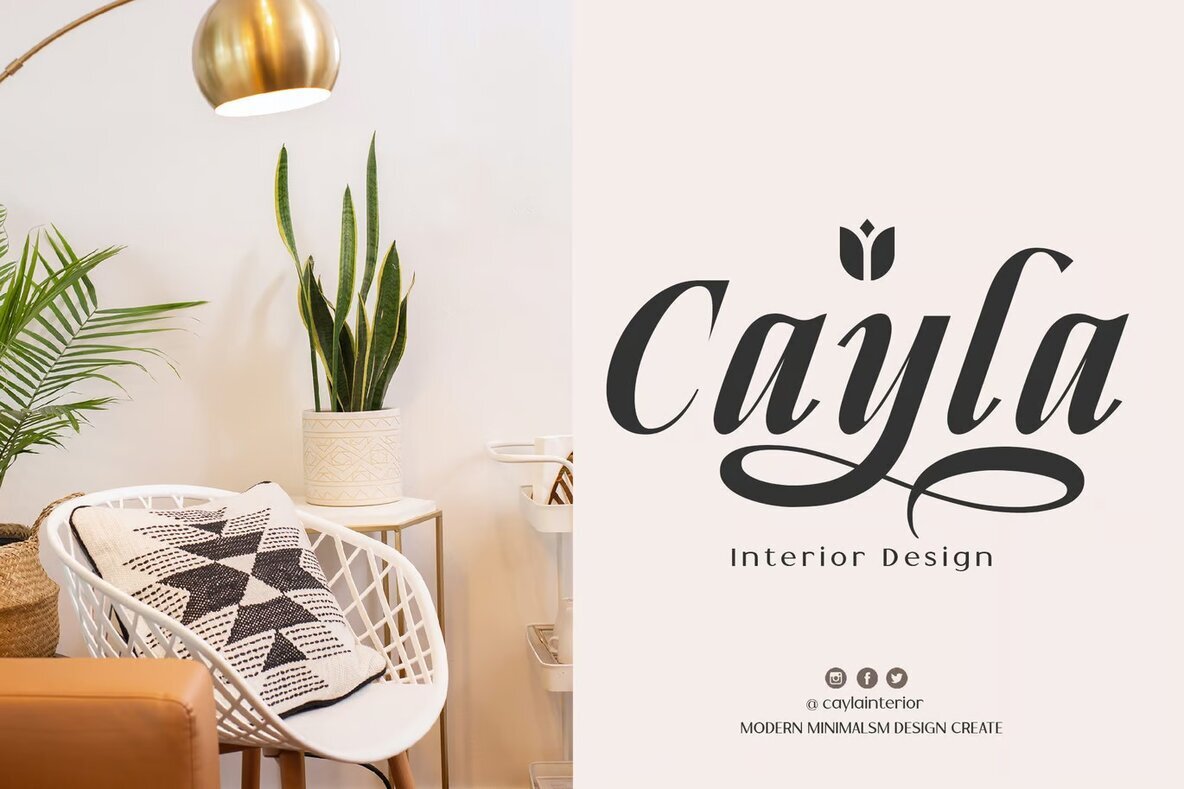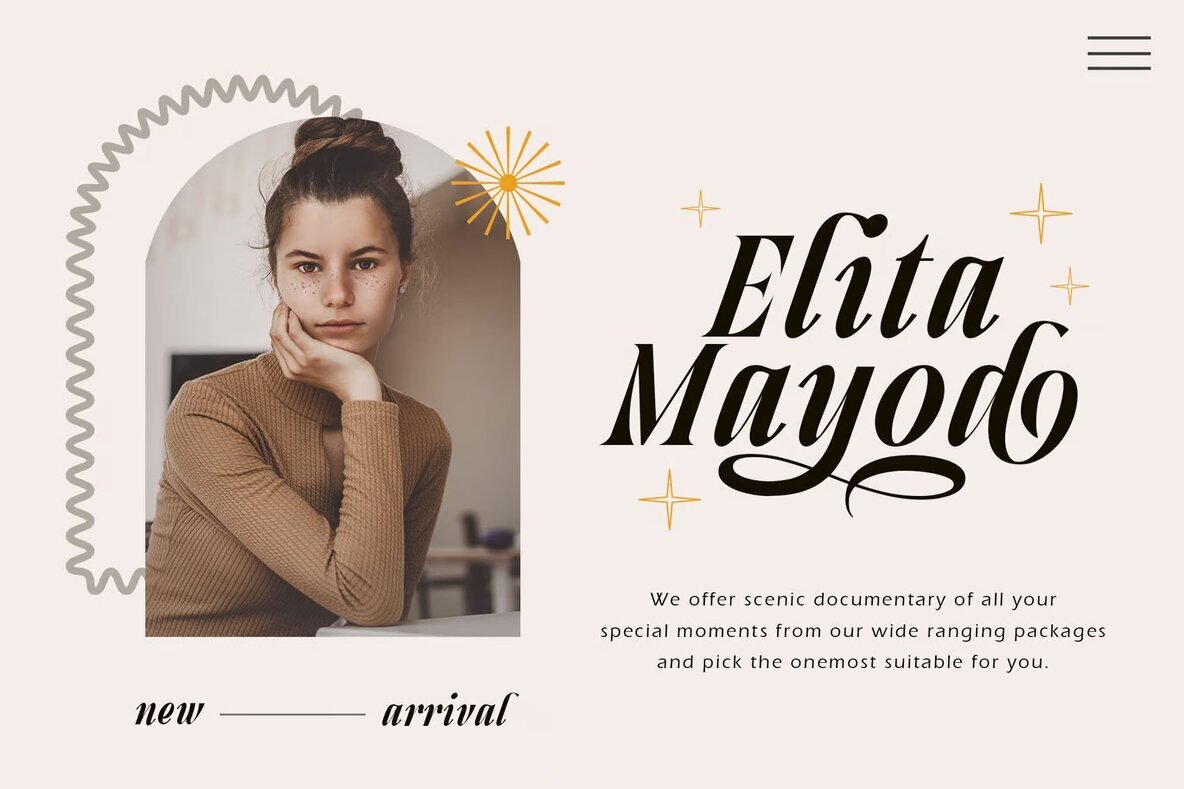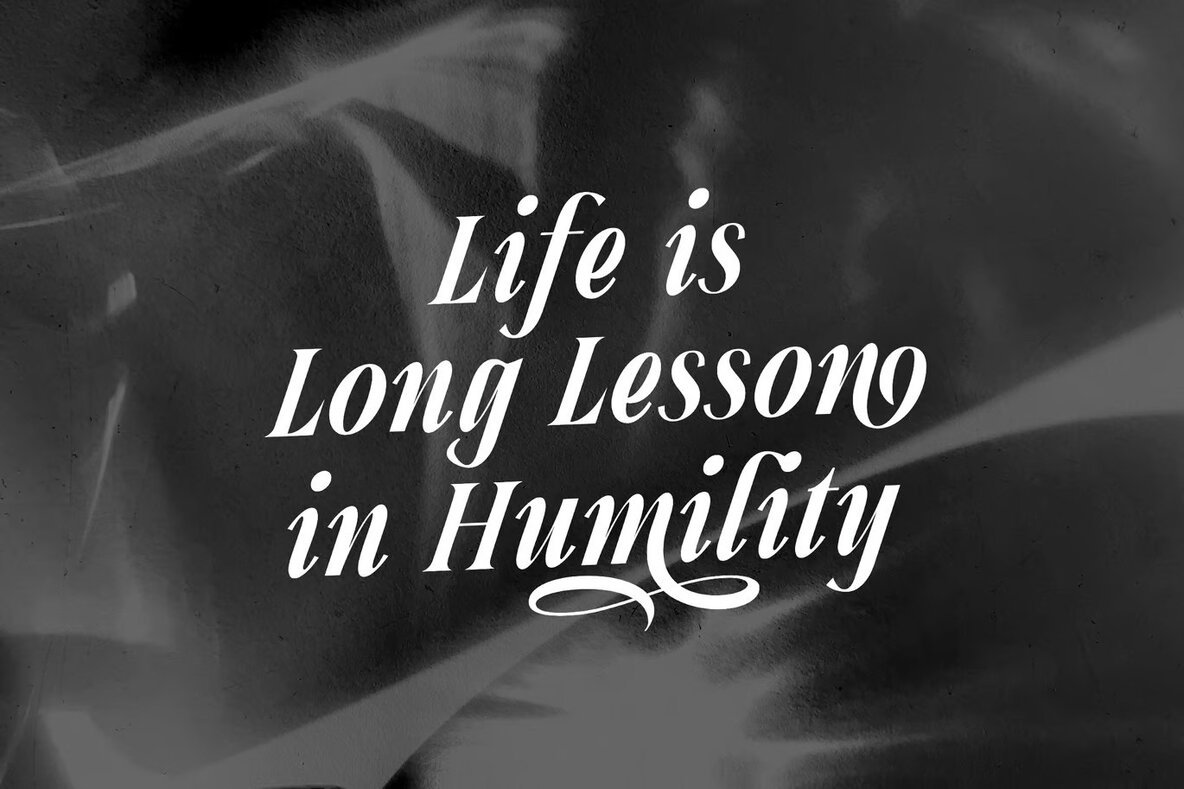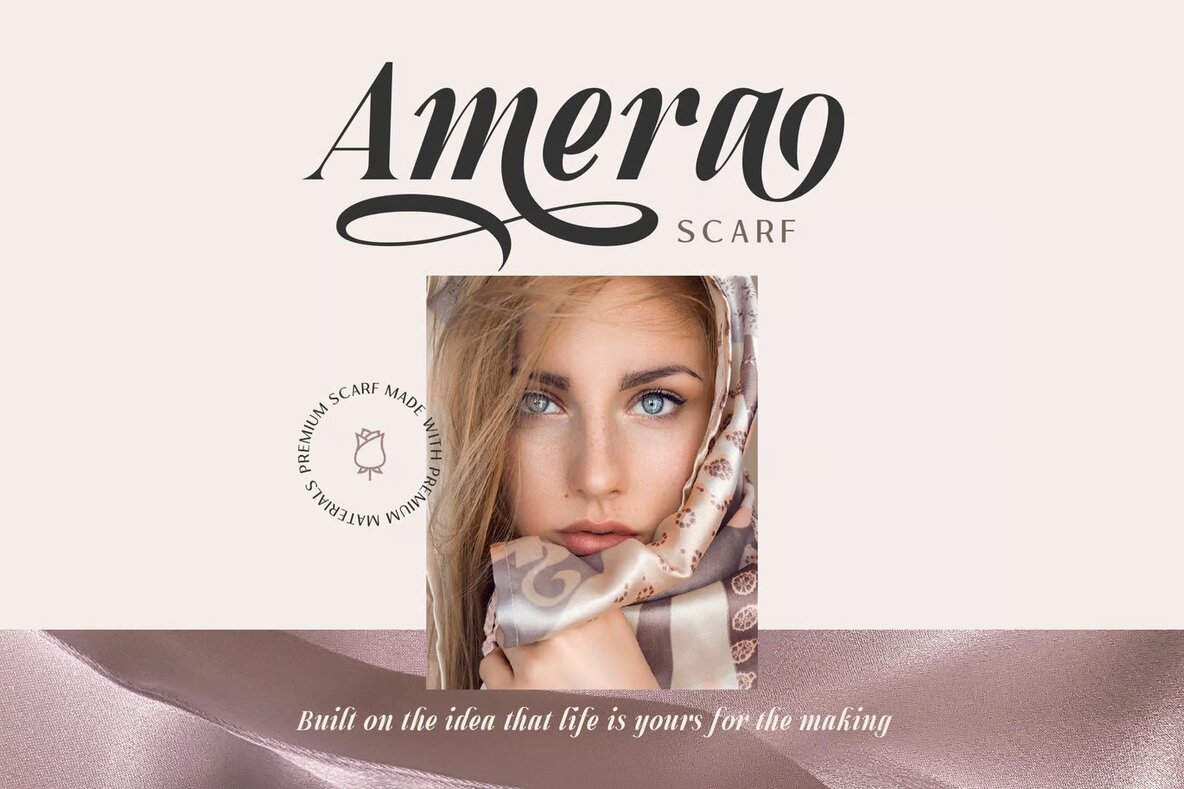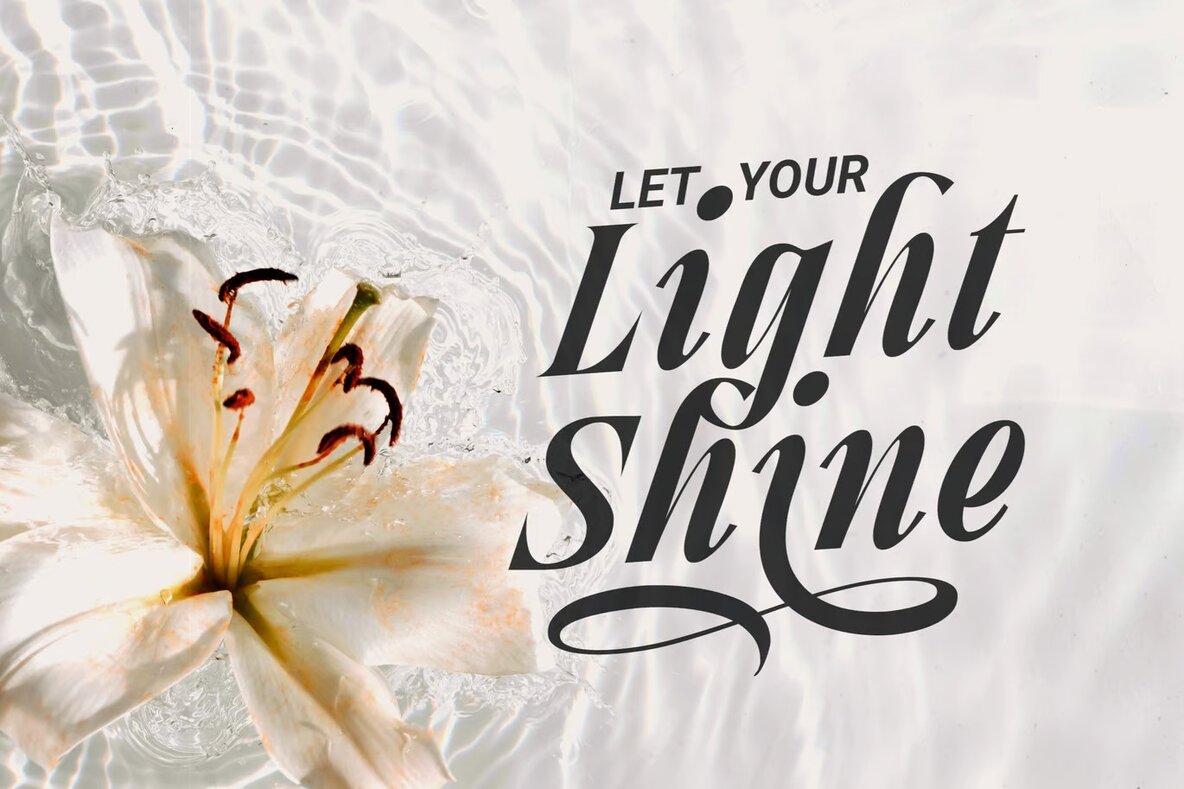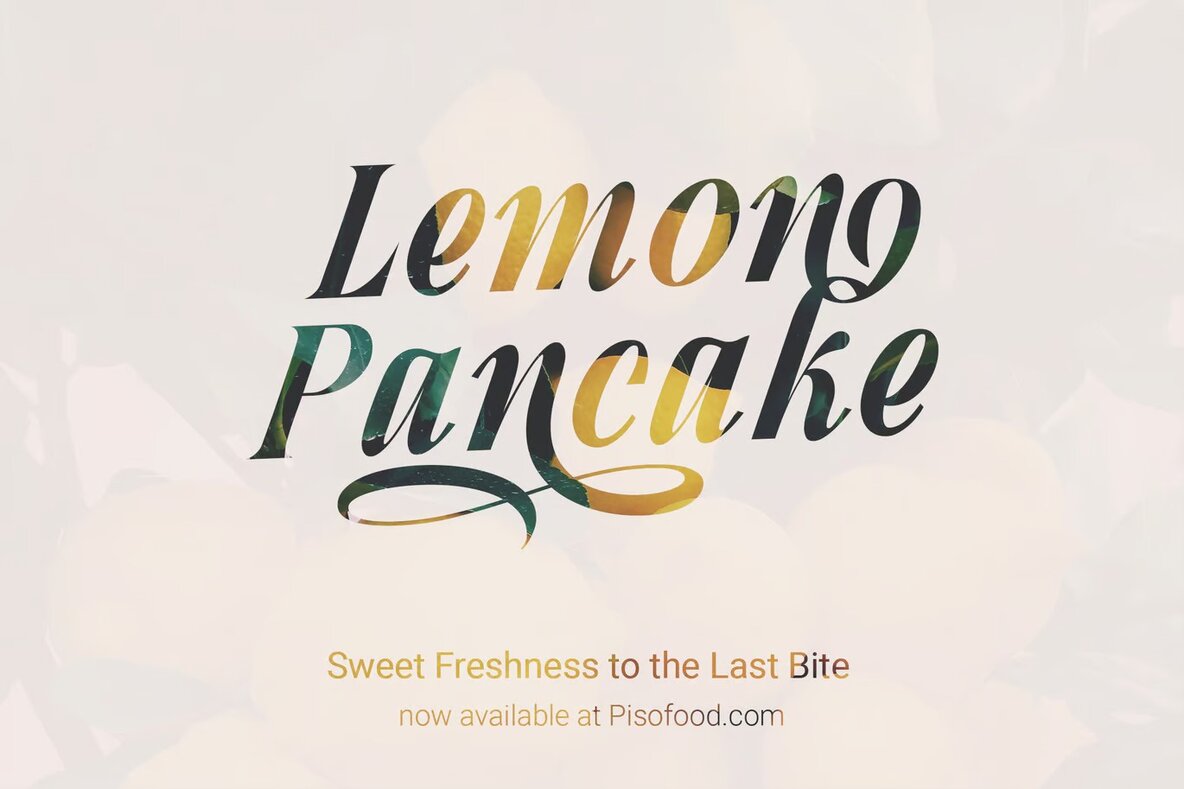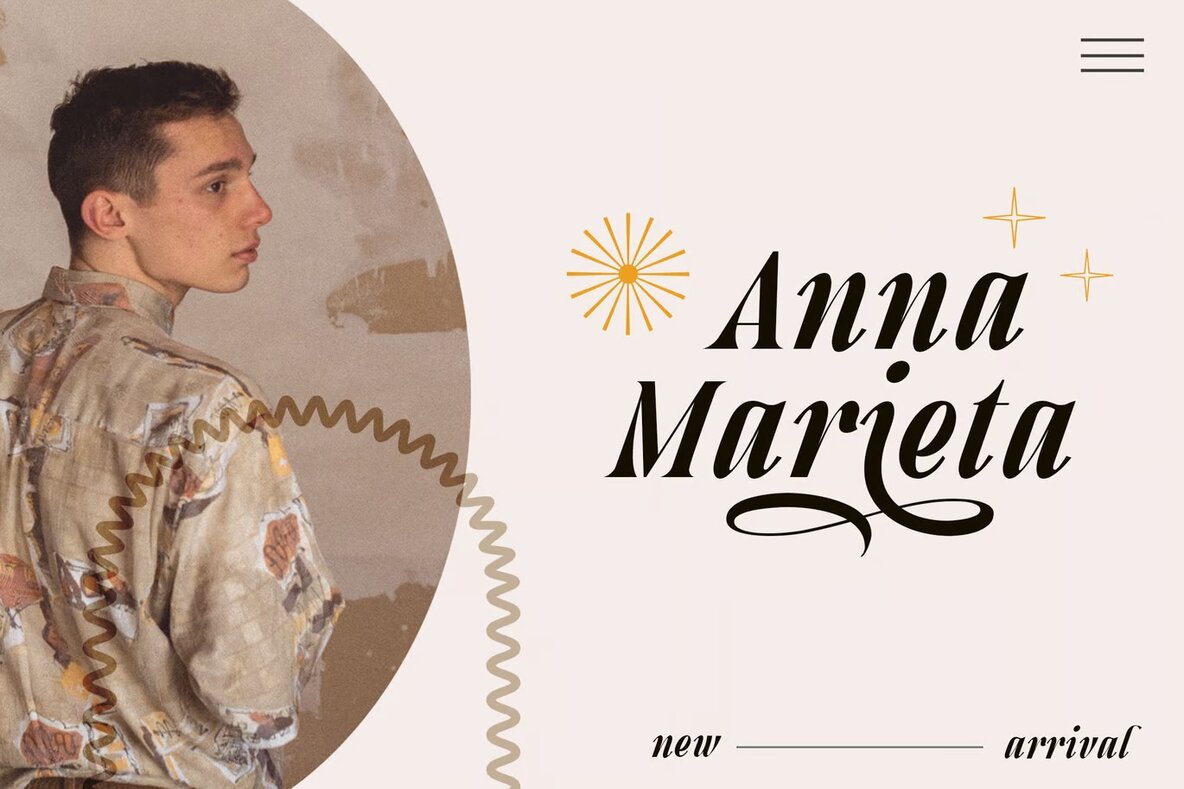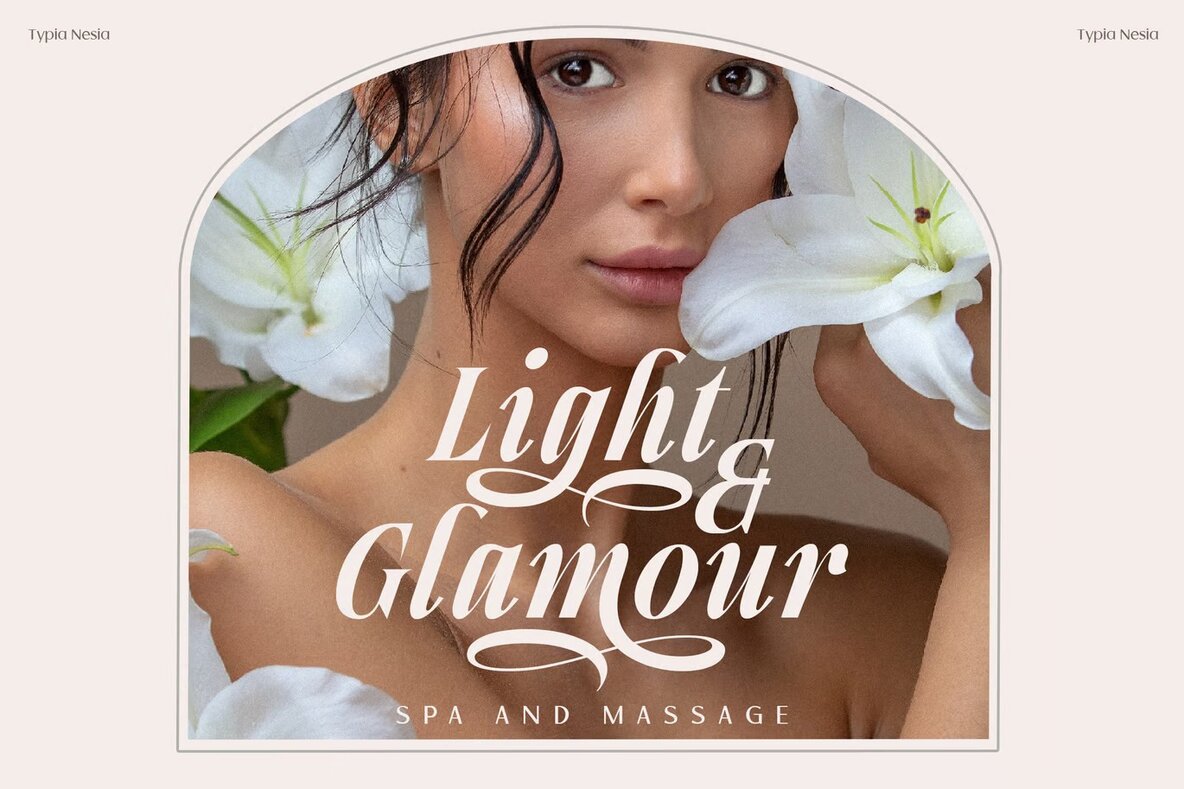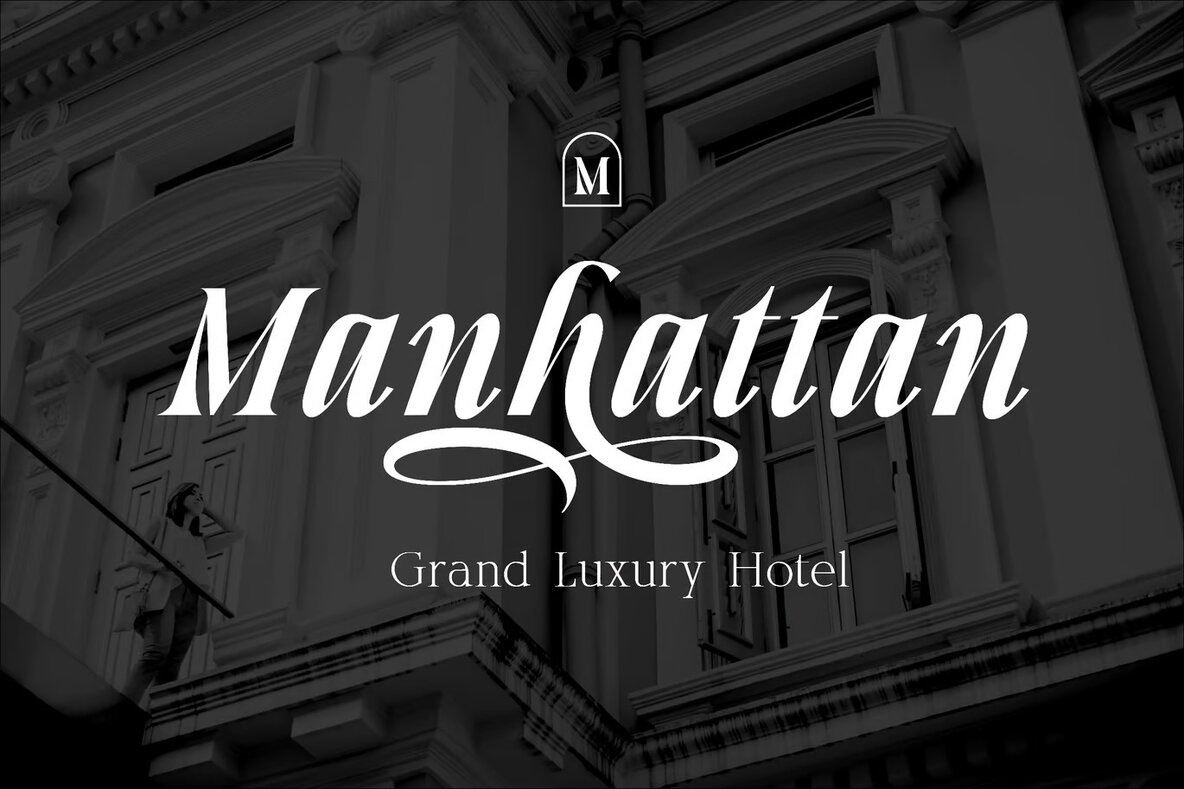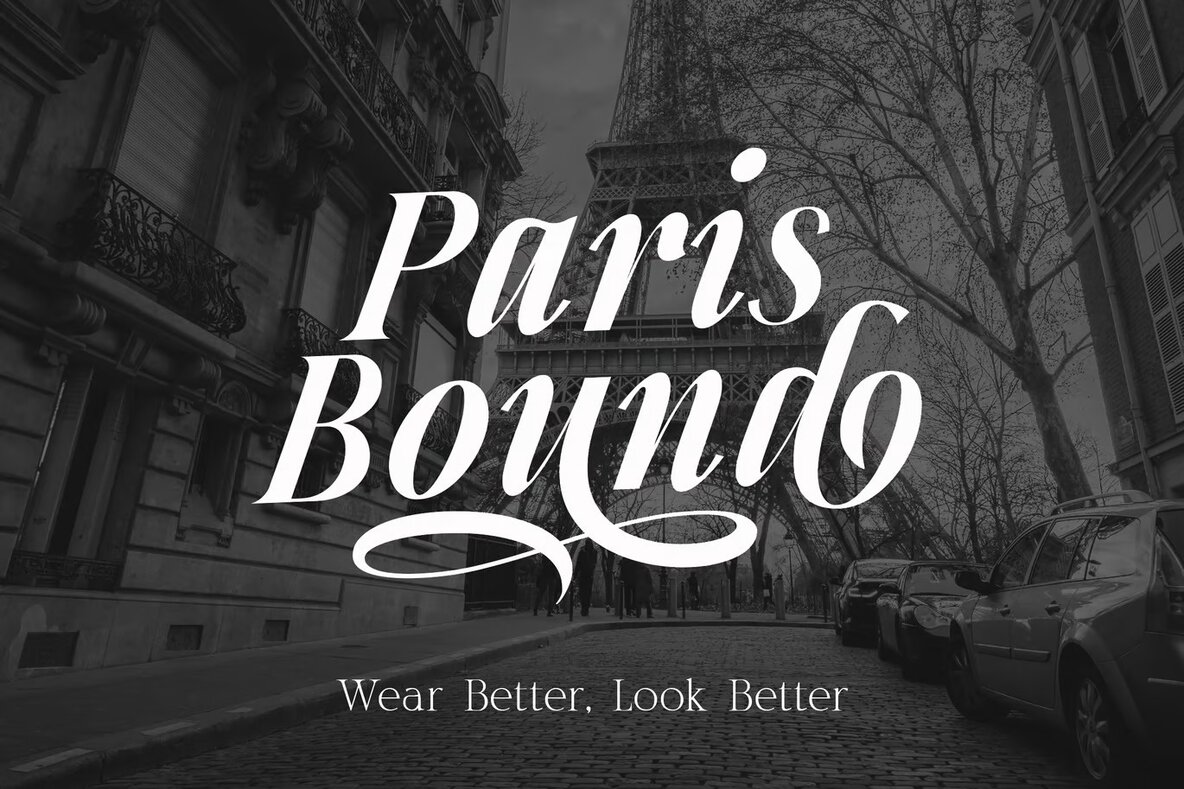
Gold Breath Font
Gold Breath Italic
Gold Breath is a real italic calligraphy font that blends vintage elegance with modern sophistication. A classic serif with an italicized design, it offers a range of typographic options, including upper and lowercase characters, punctuation, and numerals. Enhancements through OpenType features such as ligatures, alternates, and swashes provide extensive creative freedom, allowing you to craft bespoke typography designs tailored to your projects.
This versatile font is ideally suited for a myriad of applications, from luxury logos and sophisticated branding to editorial designs and fashion promotional materials. Its refined style enhances projects such as cosmetic branding, art gallery presentations, and boutique identity development. Gold Breath is equally adept in application for stationery designs, blog graphics, modern advertisements, card invitations, and even book titles. Ideal for those seeking to convey timeless beauty across various media, this font is a valuable addition to any designer's toolkit.